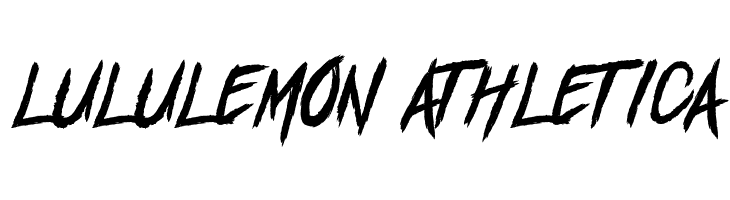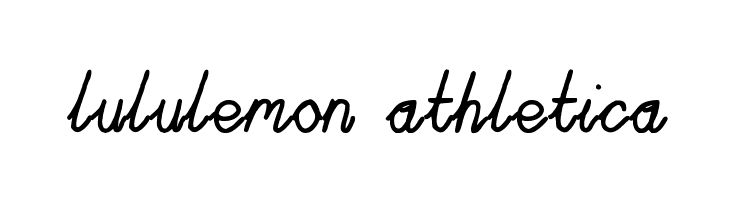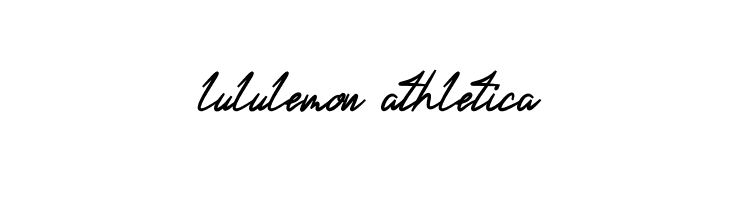
A bold, dynamic brush script with sharp, angular strokes and an edgy flair.
Elegant cursive font with interconnected, flowing letters.
A flowing, cursive script font with an elegant, handwritten style.
Bold, angular font with a dynamic, comic book style.
A bold, comic-inspired font with a dynamic, three-dimensional style.
A bold, angular font with a dynamic, comic book-inspired style.
A bold, playful handwritten font with rounded, energetic letterforms.
A bold, playful font with rounded, hand-drawn style strokes.
A bold, italicized font with a playful and dynamic style.
A bold, playful font with rounded, smooth letterforms and a slight slant.